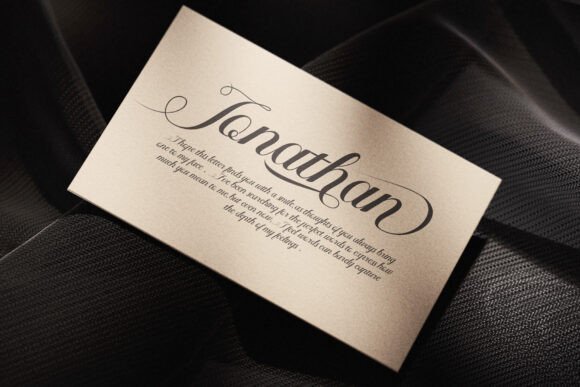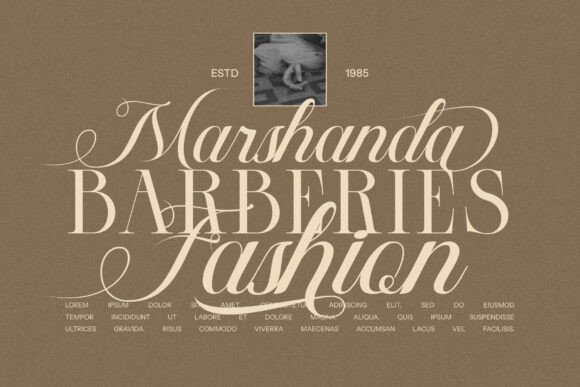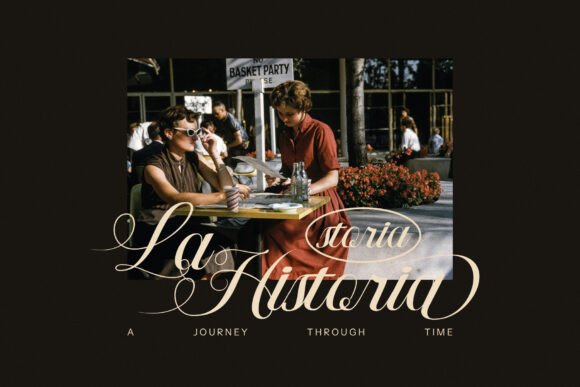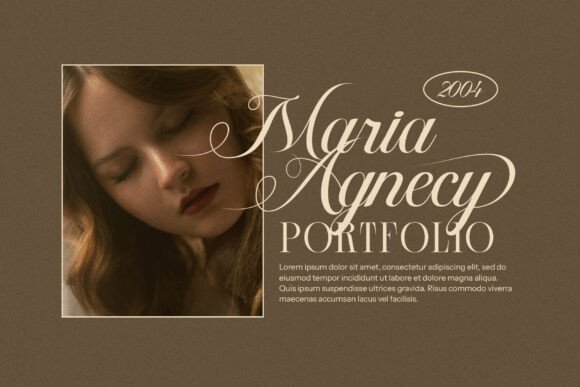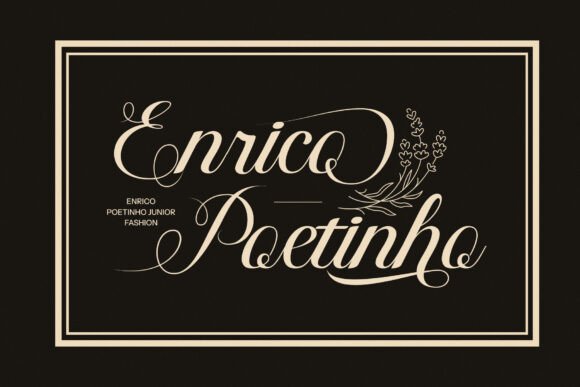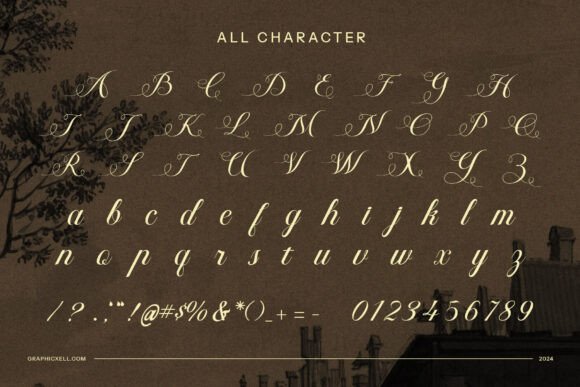
Introduction to Mothan Font Font
Fonts play a crucial role in design, and the Mothan Font font is a typeface that brings both character and versatility to any project. Whether you’re working on a branding project, a website, or a print design, the Mothan Font font offers a unique style that can elevate your work.
Mothan Wedding Script Font is a refined and graceful script font designed to bring timeless elegance to your creative projects.
With its exquisite calligraphic strokes and a variety of stunning alternate features, this font captures the sophistication and charm of hand-crafted lettering Each character flows seamlessly, making it the perfect choice for creating designs that demand a touch of luxury and romance.
Key Features of Mothan Font Font
Why Choose Mothan Font Font?
The Mothan Font font is more than just a typeface – it’s a design tool that helps you communicate your message with style and clarity. Its unique character set and versatile design make it suitable for a wide range of applications, from elegant invitations to bold headlines.
With its carefully crafted letterforms and balanced proportions, the Mothan Font font ensures readability and visual appeal across all mediums.
What makes Mothan Font font special?
The Mothan Font font stands out with its unique design, exceptional readability, and versatility across various design applications.